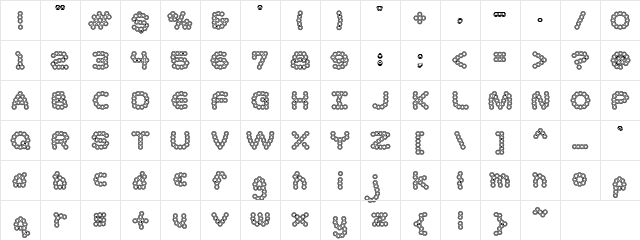
Accent Dot Bits 2 Regular
Design Context for Accent Dot Bits 2
Accent Dot Bits 2 is rooted in pixel-grid construction, making it a natural fit for game UI, retro computing aesthetics, and digital nostalgia projects.
Pro Tip: Use Accent Dot Bits 2 at sizes that align with its pixel grid for the sharpest rendering - scaling to non-integer multiples can introduce unwanted blur.